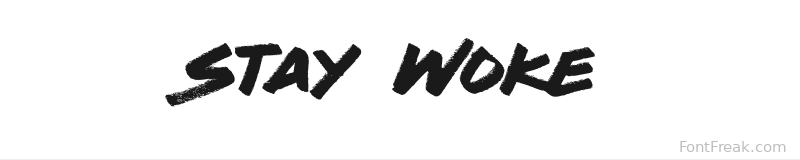
Aerofoil
About Aerofoil
Aerofoil, designed by Denise Chan in 2007, is a captivating display typeface that seamlessly blends elegance with modern aesthetics. This font stands out with its unique characteristics, making it a versatile choice for various design projects. Aerofoil features a fluid and dynamic stroke weight that gives it an air of sophistication, while the moderate contrast between thick and thin lines enhances its readability. The spacing between characters is well-considered, ensuring that each letter flows into the next without compromising legibility, even at larger sizes. Decorative elements are subtly incorporated, providing a graceful touch without overwhelming the overall design.
Ideal for creative applications, Aerofoil shines in wedding invitations, where its elegant style can convey romance and sophistication. It is also a fantastic choice for movie posters, adding a cinematic flair that captures attention. Restaurant menus benefit from Aerofoil's charm, as it can evoke a sense of culinary artistry. Additionally, this font can elevate branding materials for small businesses, enhancing logos or promotional flyers with its distinctive look.
Aerofoil appeals to a broad audience, including graphic designers seeking a unique typeface for their projects, small business owners looking to establish a memorable brand identity, and content creators who want to make their work visually appealing.
What truly sets the Aerofoil font apart is its ability to blend artistry with functionality. It captures the essence of creativity while remaining practical for various uses, making it a standout choice in the realm of contemporary typography. For those looking to enhance their design projects, the Aerofoil font free download offers an excellent opportunity to incorporate this stunning typeface into their work.